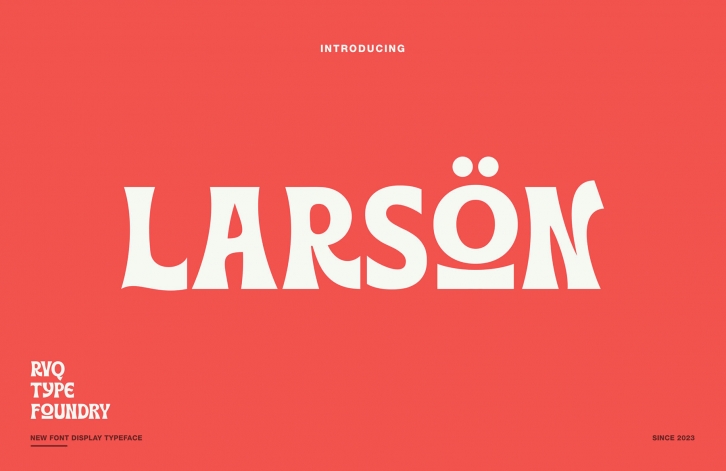
The Larson Display: A Groundbreaking Typeface for Creative Futurists
As we find ourselves strolling along the boulevards of innovative design and creative expressions, we are continuously on the lookout for cutting-edge artifacts that encompass an essence of sophistication mixed with distinct functionality. Breaking apart from the norm and capturing the very essence of this quest, we proudly introduce to you the newest addition to the world of typography - The Larson Display. This unique font, ingeniously crafted by RVQ Type Foundry, resonates with an elegant feel character set that elevates any design it adorns.
For those creative futurists that revel in the enchanting world of graphic design, The Larson Display presents an exceptional tool that embodies ingenuity and aesthetic charm. With its incorporation of both uppercase and lowercase letters, it fosters a distinct style, amalgamating versatility with the grace. Thus, it proves to be a remarkable asset for marketing firms aiming to create influential and memorable campaigns. But this is just the tip of the iceberg when it comes to the complete Larson Display experience.
Key features of The Larson Display:
• An elegant feel character set that elevates any design it complements
• A unique mix of uppercase and lowercase letters that allows for customization and distinct stylistic expressions
• A a versatile tool for graphic designers and marketing firms
• Crafted by the renowned RVQ type foundry ensuring a standard of excellence
• Incorporates a full set of capital and lowercase letters, as well as multi-lingual support